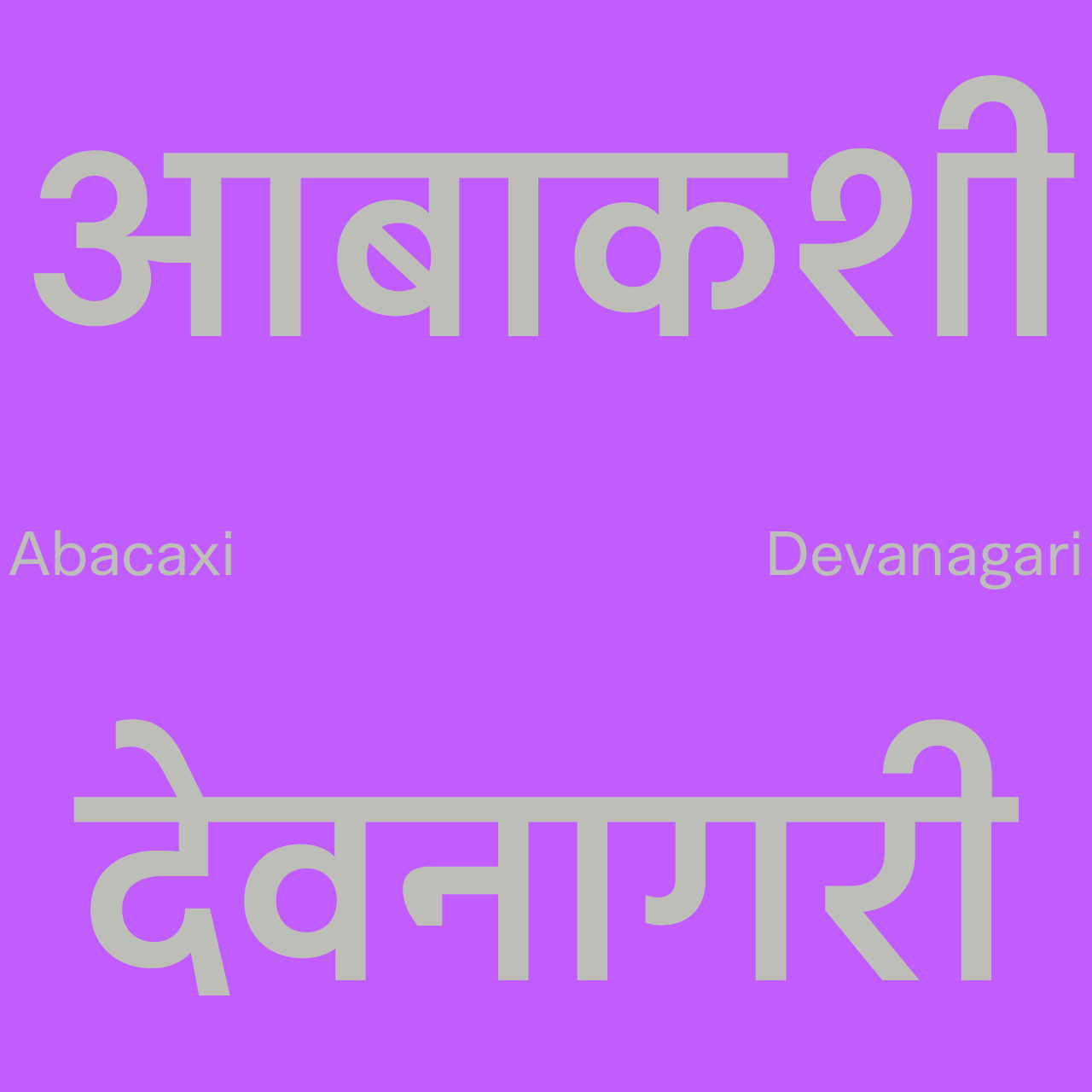
Abacaxi is a lush, robust, deliciously low contrast Devanagari and Latin font family.
We named it for the Brazilian Portuguese word for pineapple.
Abacaxi comes in 7 weights from Thin to Extra Bold, and also a variable font.